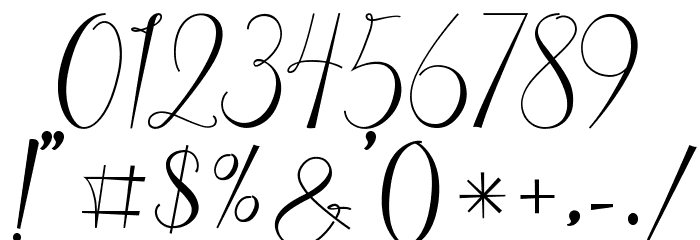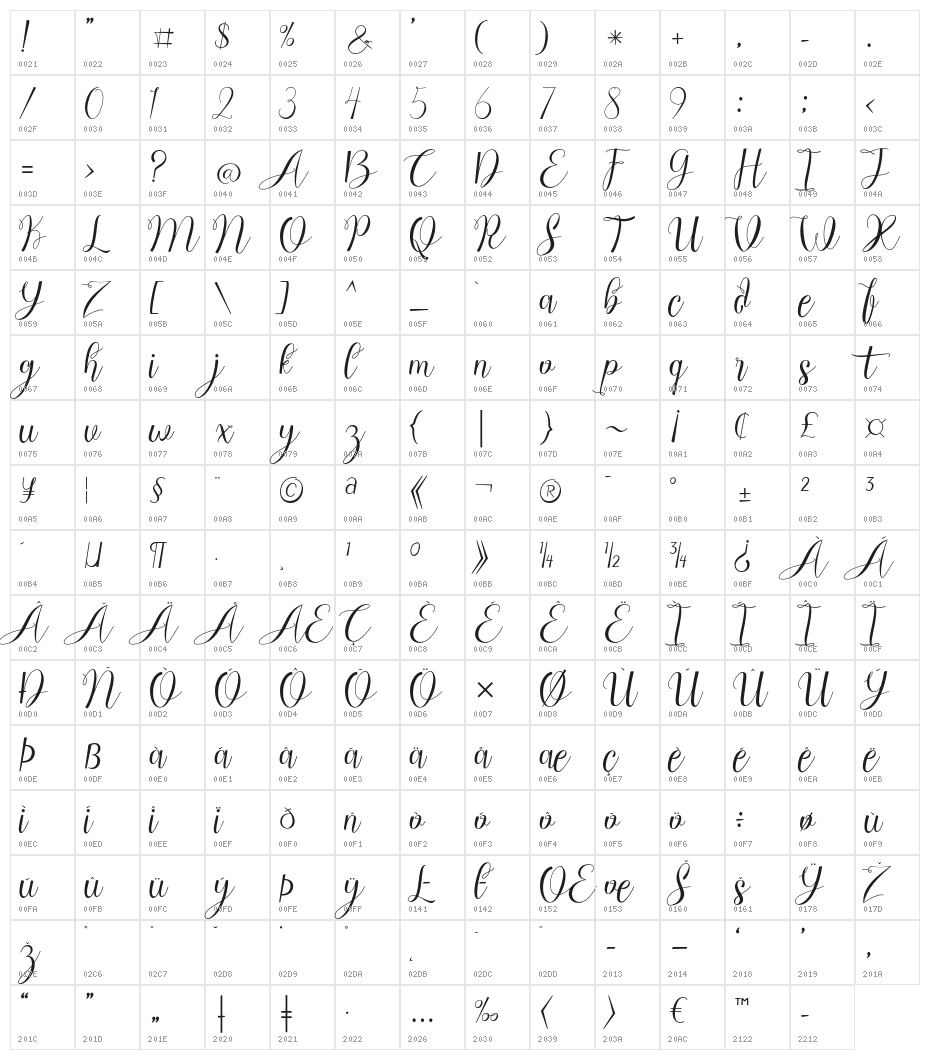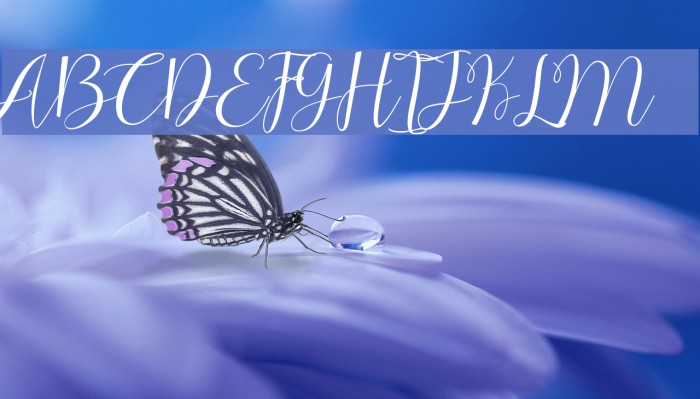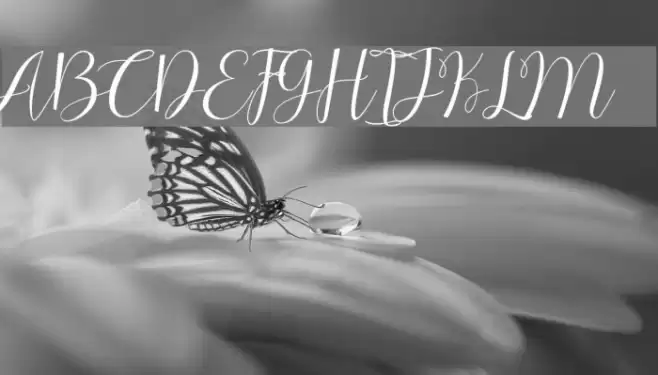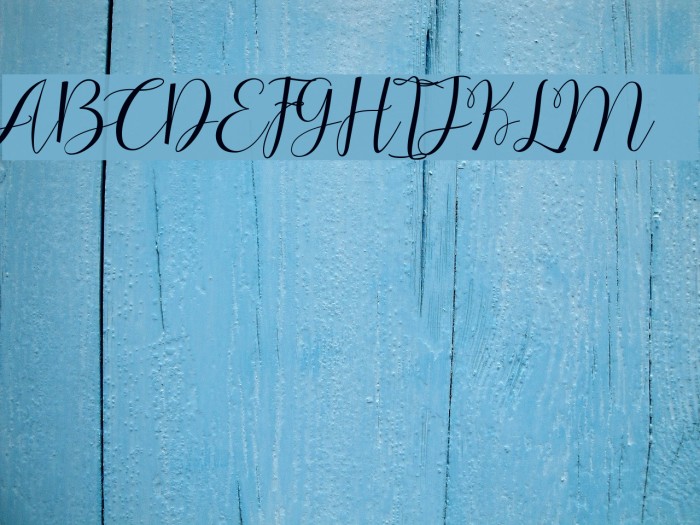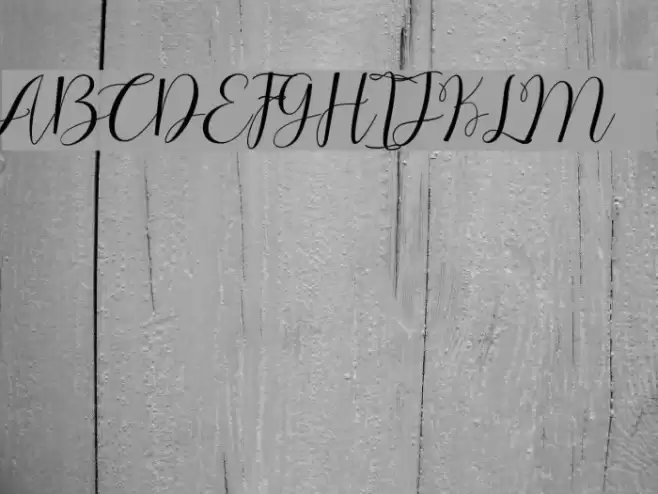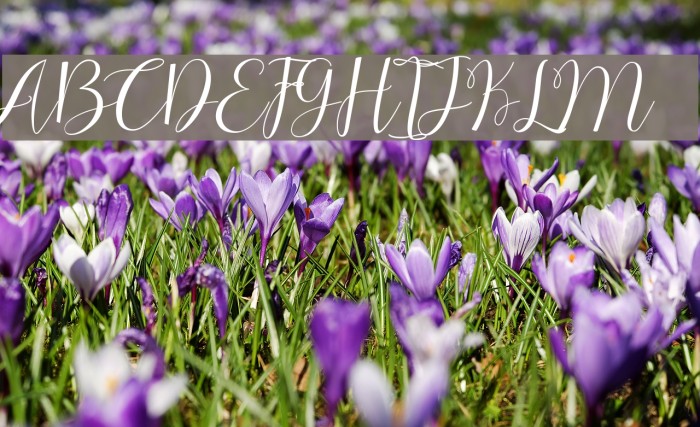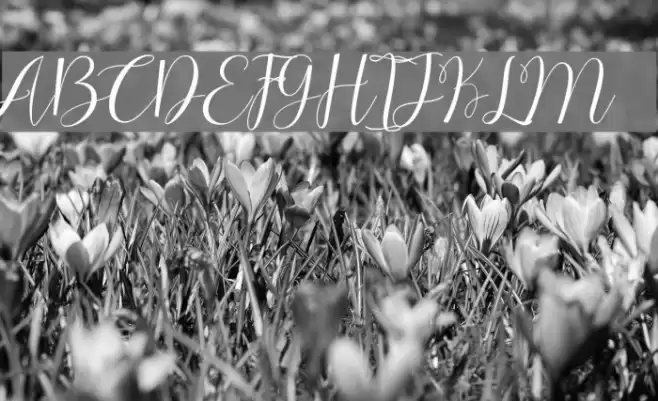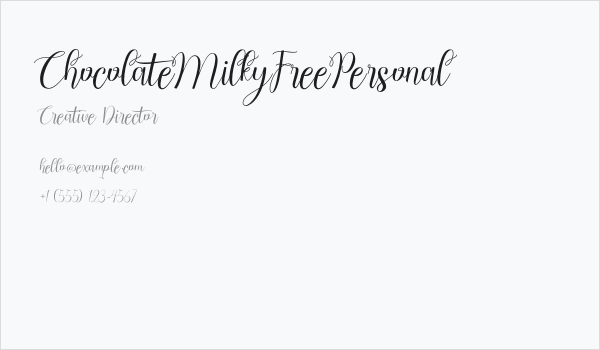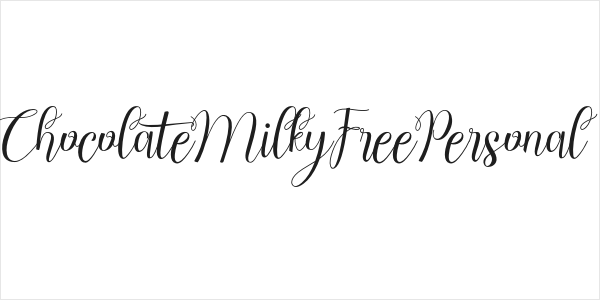
ChocolateMilkyFreePersonal Font
ChocolateMilkyFreePersonal Description
This font features an elegant and flowing script style, characterized by its smooth, cursive lines and graceful curves. The uppercase letters exhibit a sophisticated flair with extended loops and swashes, while the lowercase letters maintain a consistent fluidity, enhancing readability. Numbers and special characters are designed with the same attention to detail, ensuring a cohesive look across all glyphs. The overall appearance is both stylish and refined, making it suitable for formal and decorative applications.
| Proposed Projects | Ideal for wedding invitations, elegant branding, greeting cards, and decorative signage. |